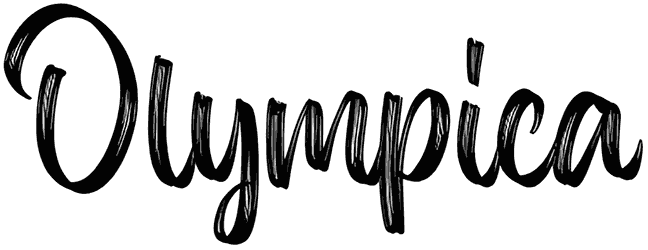
Olympica Font
Olympica is an artistic font that has the real potential to turn any kind of casual creative idea, including illustrations, book covers, magazines, or social media posts, into a true piece of art.
Due to its stretched and curved letters, it can share a vibe of jauntiness, diversity, freshness, or vitality with the audience and grabs their attention in the shortest time. Just in case you require another brush font like this one, don’t hesitate to visit our library.